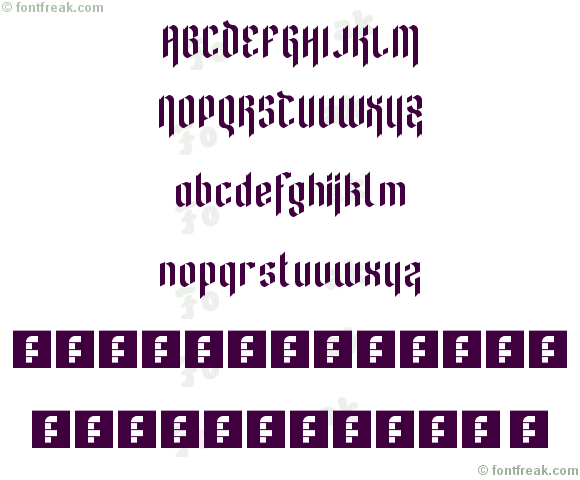
Burgos Regular
About Burgos
Burgos, designed by Sergio Berkenbrock, is a captivating display font that brings a unique flair to any project. This freeware font features a distinctive serif style that combines elegance with a touch of modernity, making it a versatile choice for various design applications. The visual characteristics of Burgos include a bold stroke weight and well-defined serifs, which contribute to its striking presence. The contrast between thick and thin strokes adds depth, while the careful spacing ensures readability even at larger sizes. Decorative elements are subtly integrated, giving the font a sophisticated yet approachable feel.
Burgos is particularly well-suited for a range of creative uses. Its striking appearance makes it an excellent choice for wedding invitations, where it can convey elegance and formality. Additionally, it can enhance the visual appeal of movie posters, helping to capture attention and convey the film's genre. Restaurant menus can benefit from Burgos's stylish look, inviting diners with an aesthetically pleasing presentation. It also works well for branding projects, allowing small business owners to establish a memorable identity. Content creators will find Burgos useful for social media graphics, where eye-catching typography can make a significant impact.
Targeting graphic designers, small business owners, and content creators alike, Burgos offers a fresh approach to typography. Its unique blend of classic and contemporary elements makes it stand out in a crowded font marketplace. Whether you are looking to elevate your design projects or create an unforgettable brand presence, the Burgos font free download provides an accessible option that doesn't compromise on style. With its visually compelling characteristics and versatile applications, Burgos is a font that can inspire creativity and enhance communication in any visual medium.